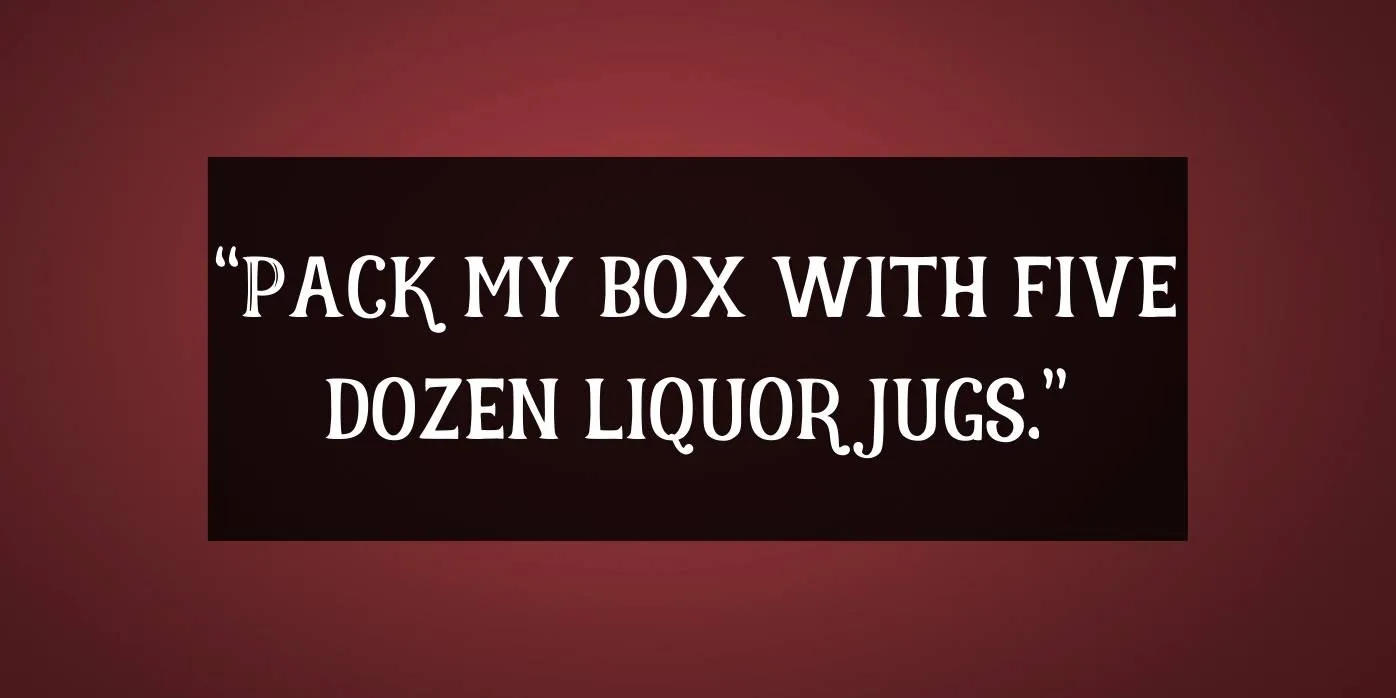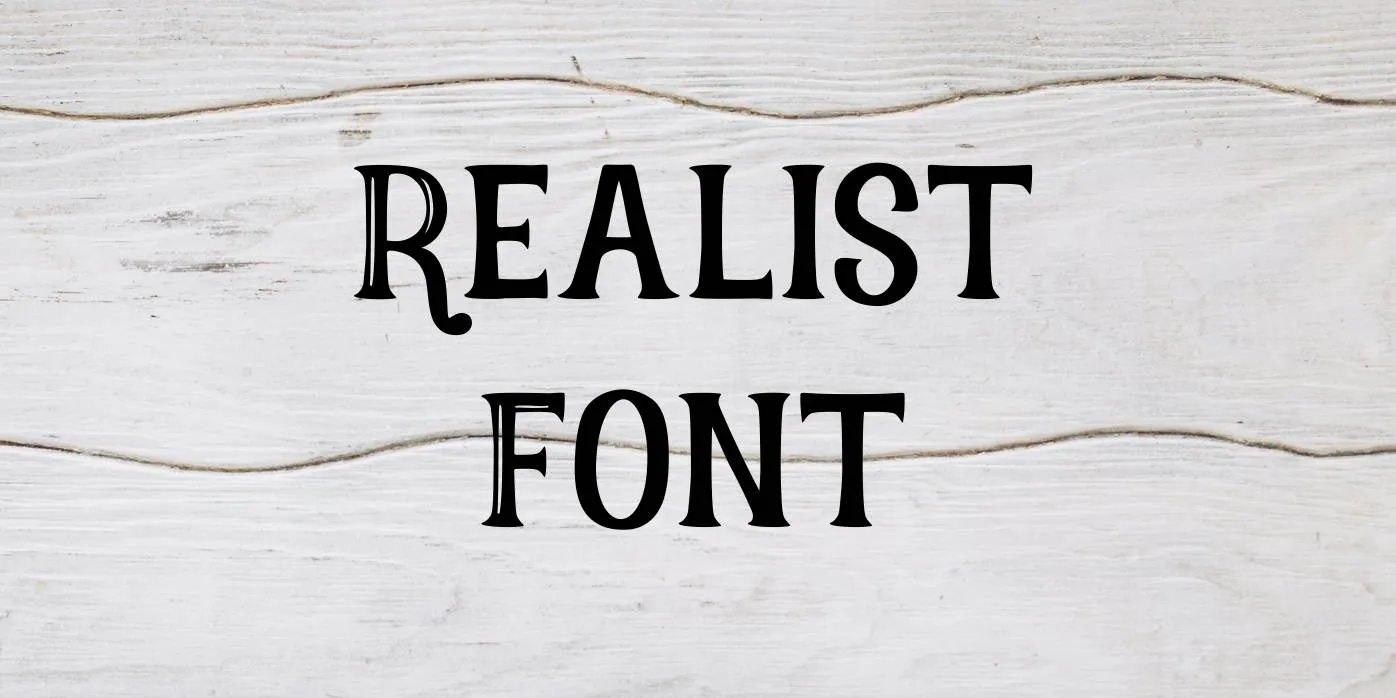
Realist Font
Here, we are going to present a stylish typeface named Realist Font. This gorgeous typeface belongs to the Slab serif typeface. It was designed by Graptail. It was released in the year 2017.
This stunning typeface has neat and clean textures. The best part about this typeface is that it contains several features like old-style figures, Superscript, subscript, fractions, and many more. It also supports various languages. This typeface is perfect for creating headlines as well as for body text.